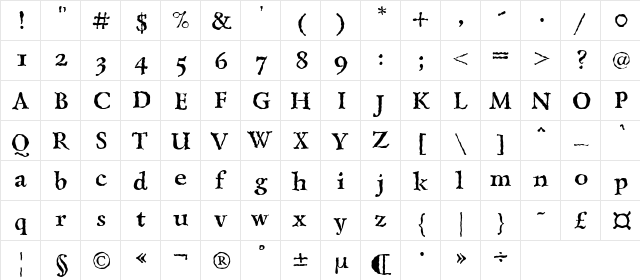
LazurskiAntiqueTextC Bold
| Foundry | ParaType, Inc |
Design Context for LazurskiAntiqueTextC Typeface
LazurskiAntiqueTextC has the warm character of retro typography — evoking diners, record sleeves, and the golden age of print advertising. Its bold stroke weight gives it real presence on the page.
Perfect for vintage-inspired branding, retro packaging, nostalgia campaigns, and period-accurate editorial design.
Font Pairing: Combine LazurskiAntiqueTextC with a simple slab or neutral sans — period-accurate companions reinforce the vintage feel without competing for attention.
Pro Tip: Use LazurskiAntiqueTextC for headlines and pull quotes rather than body copy — its personality is best appreciated in short, focused bursts.